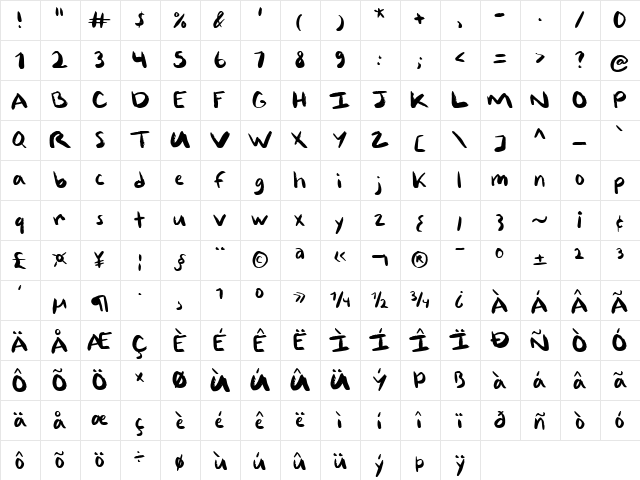
Great Answer Regular
Design Context for Great Answer Typeface
Great Answer is a composed and adaptable typeface that performs quietly and consistently across a wide range of design contexts.